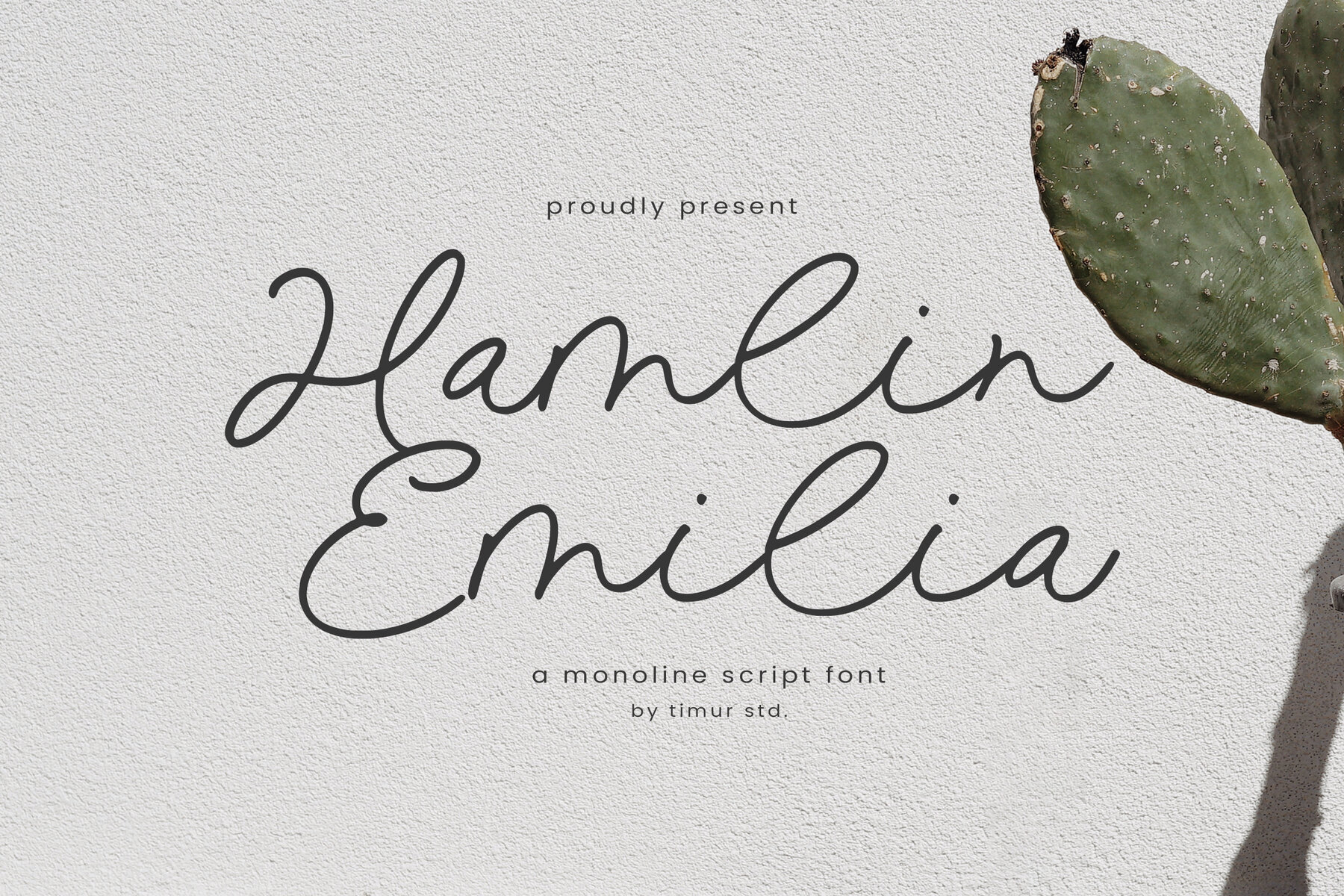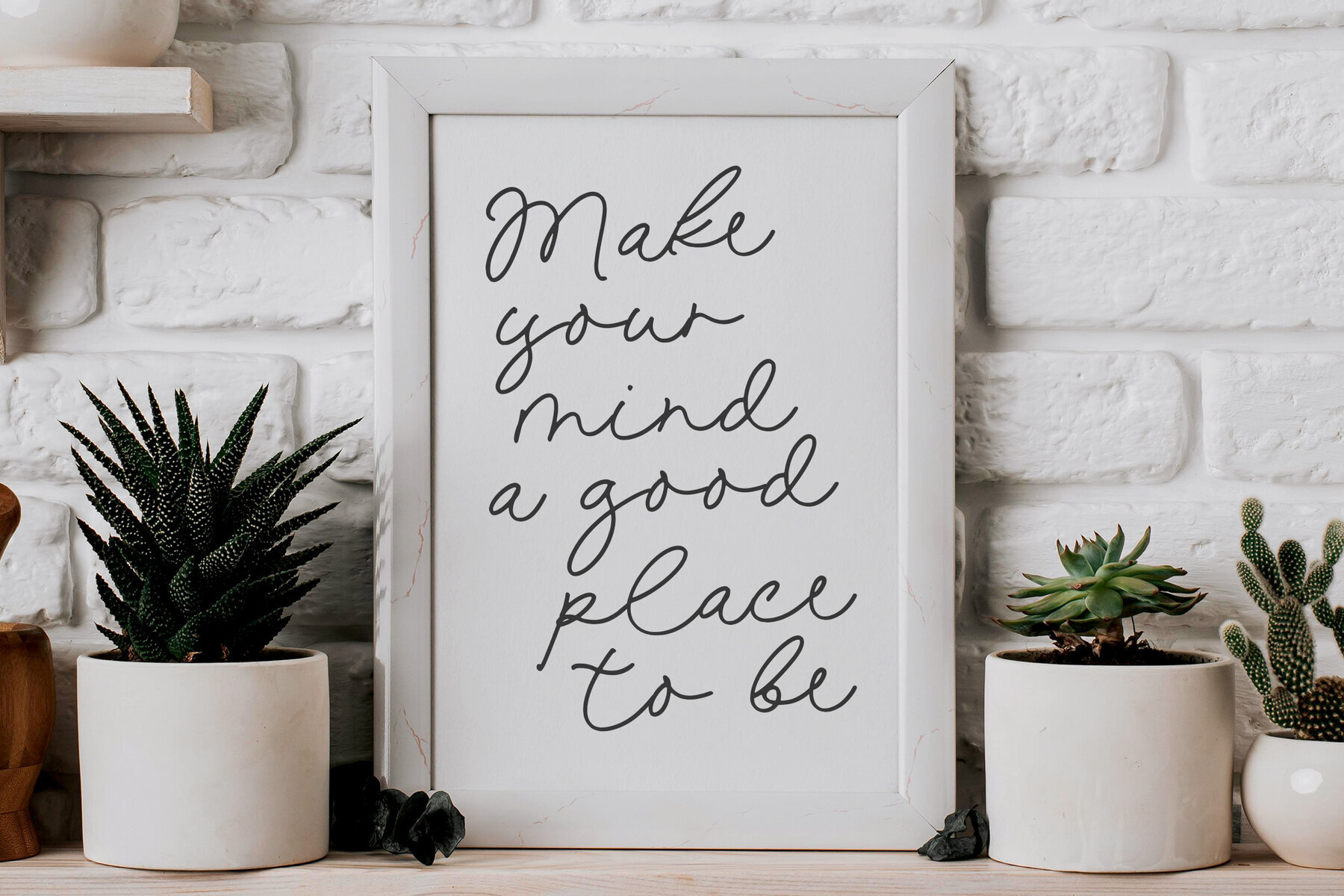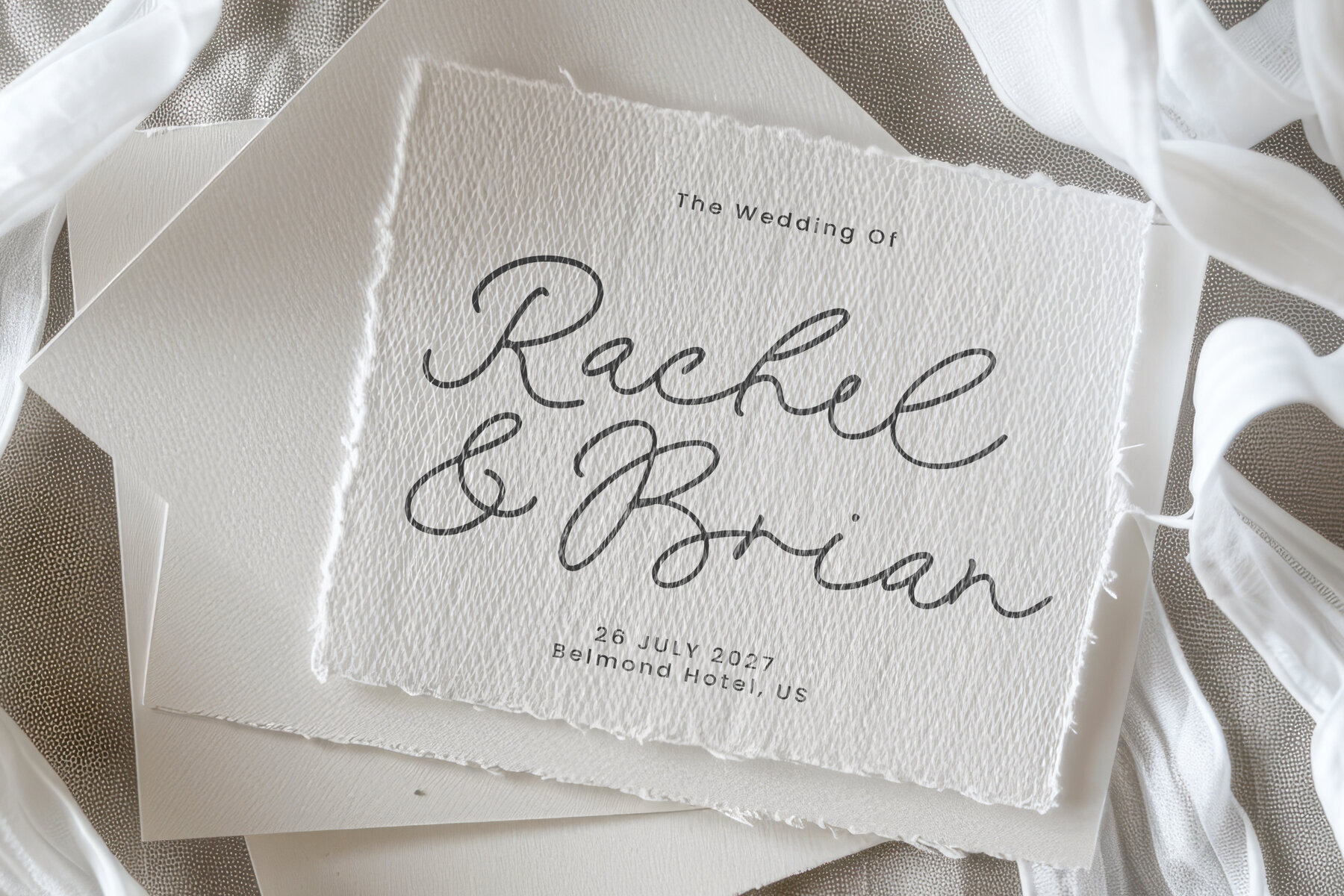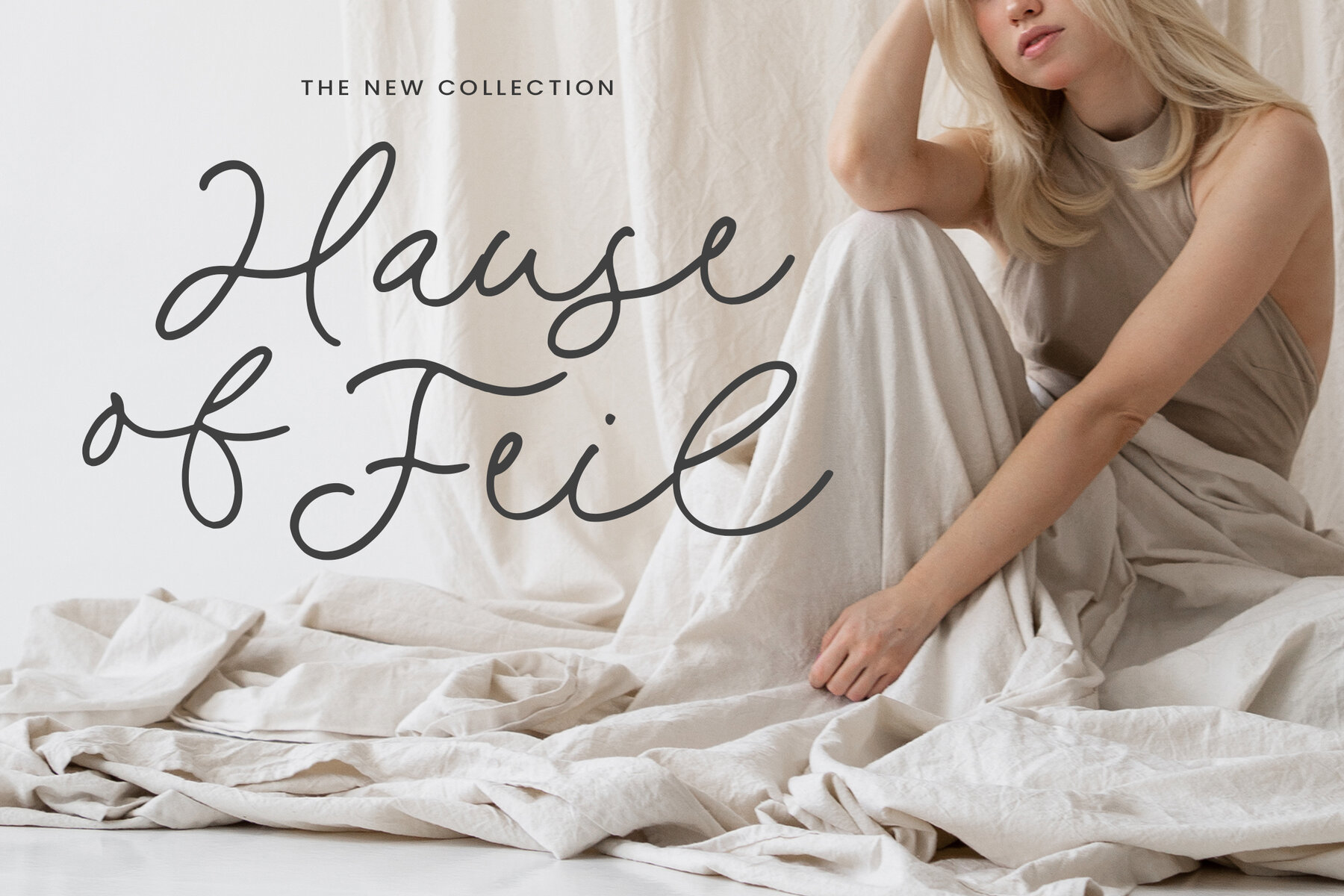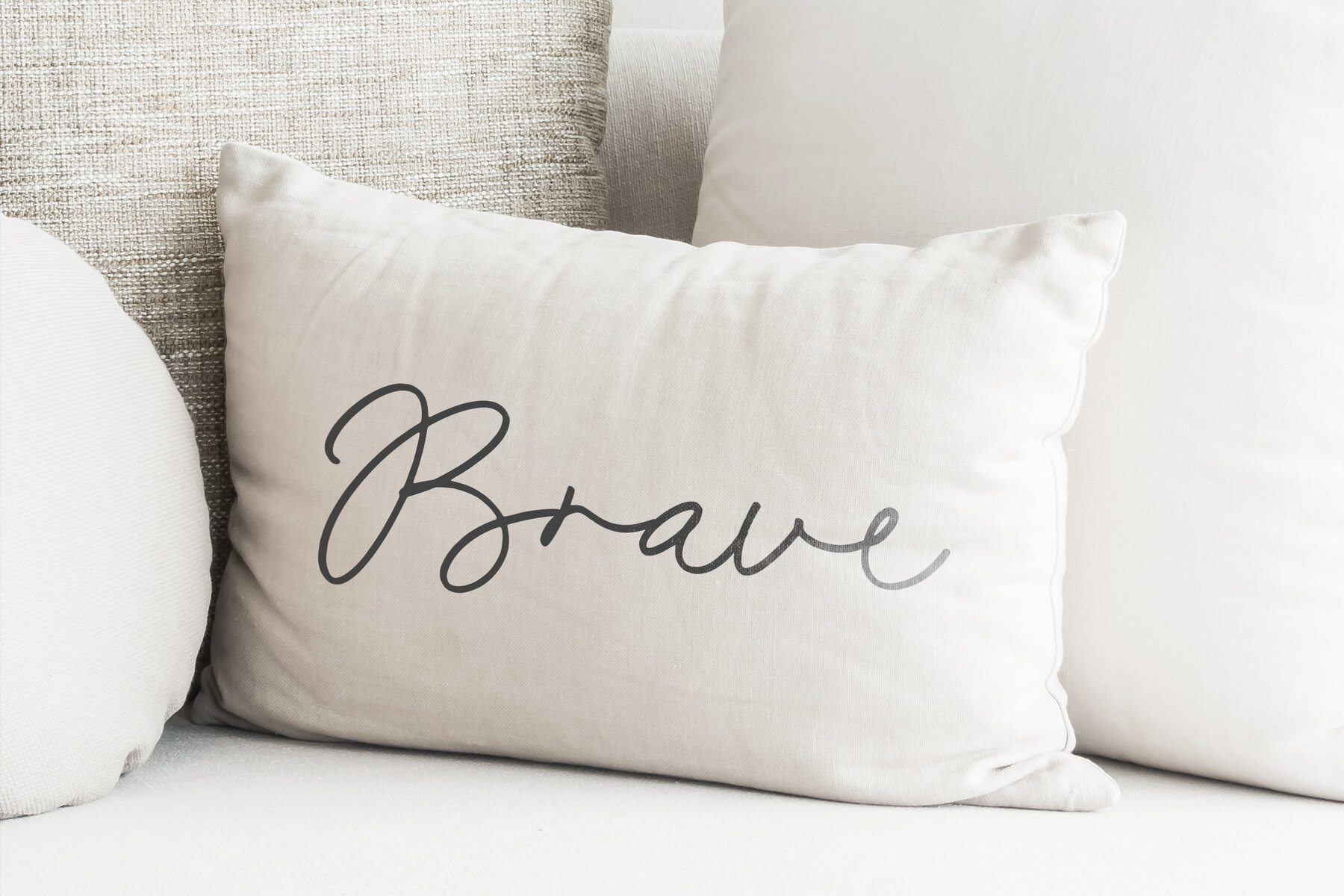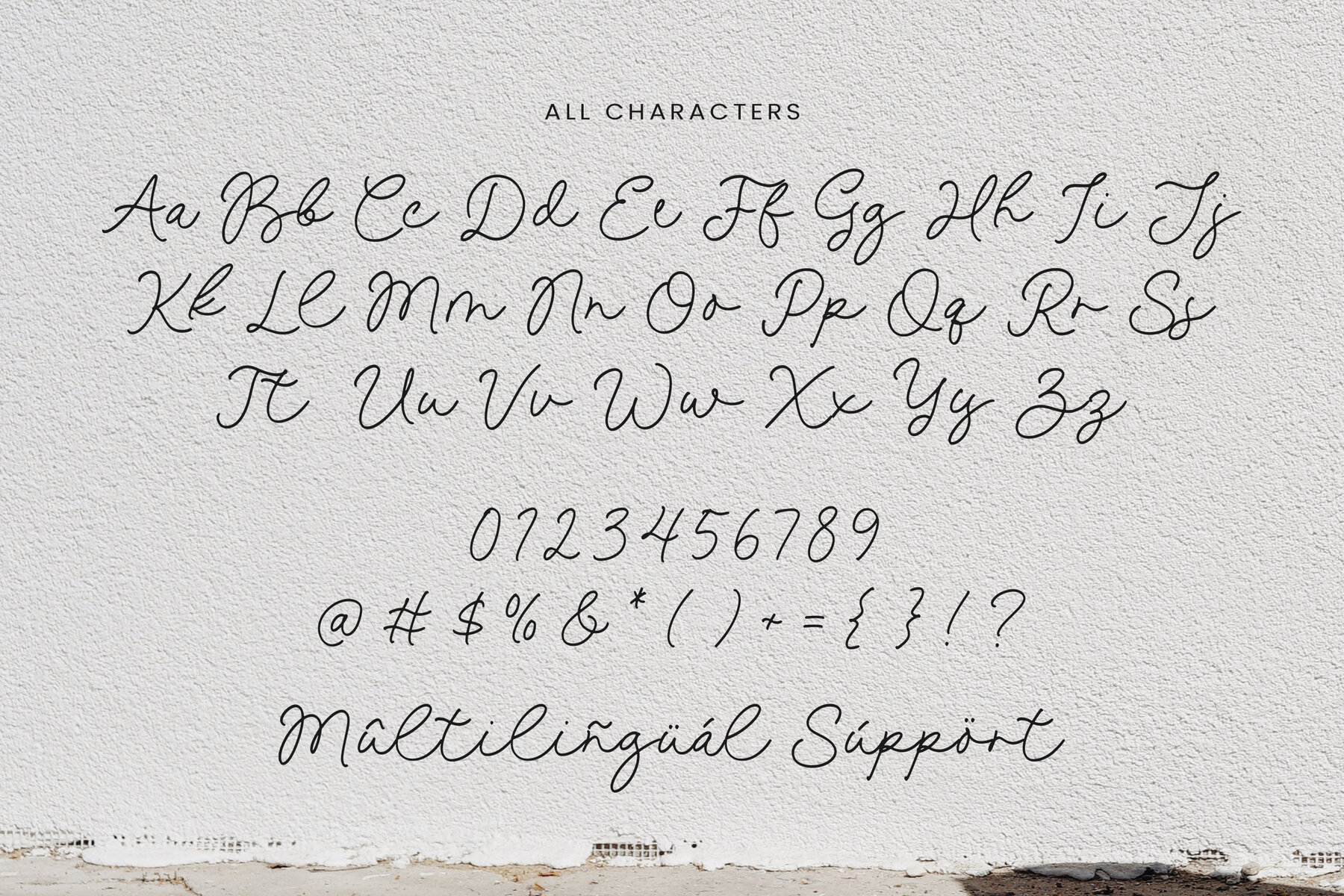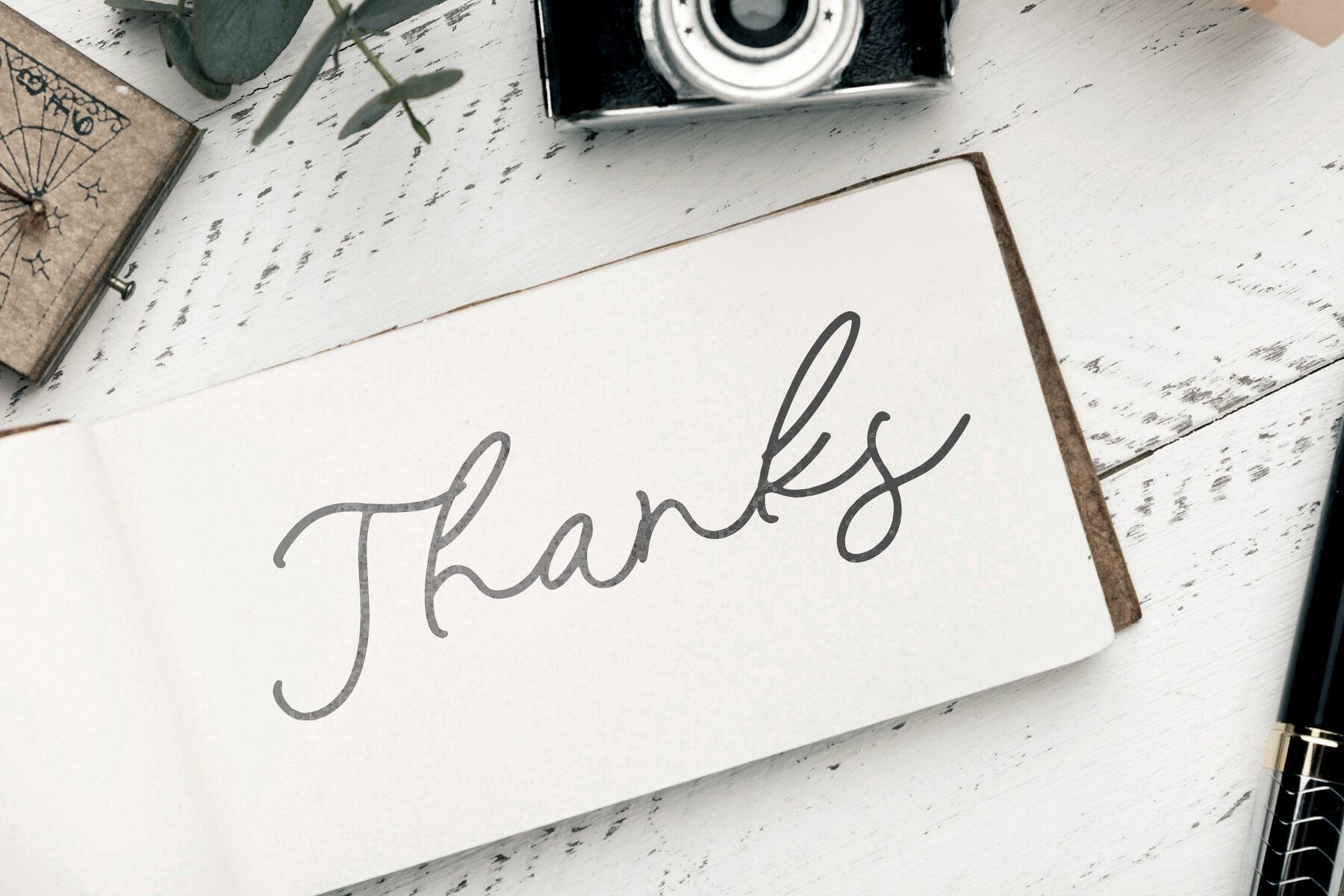
Hamlin Emilia Font
Hamlin Emilia
The Hamlin Emilia font, introduced by Timurtype Studio, harmonizes elegance and modern simplicity in a graceful monoline script. With its smooth, flowing lines and consistent stroke weight, this font is a perfect choice for crafting cohesive and striking branding materials, invitations, logos, and social media graphics. It offers the handwritten charm you seek, while ensuring your designs maintain clean readability.Hamlin Emilia: A Monoline Script Delight